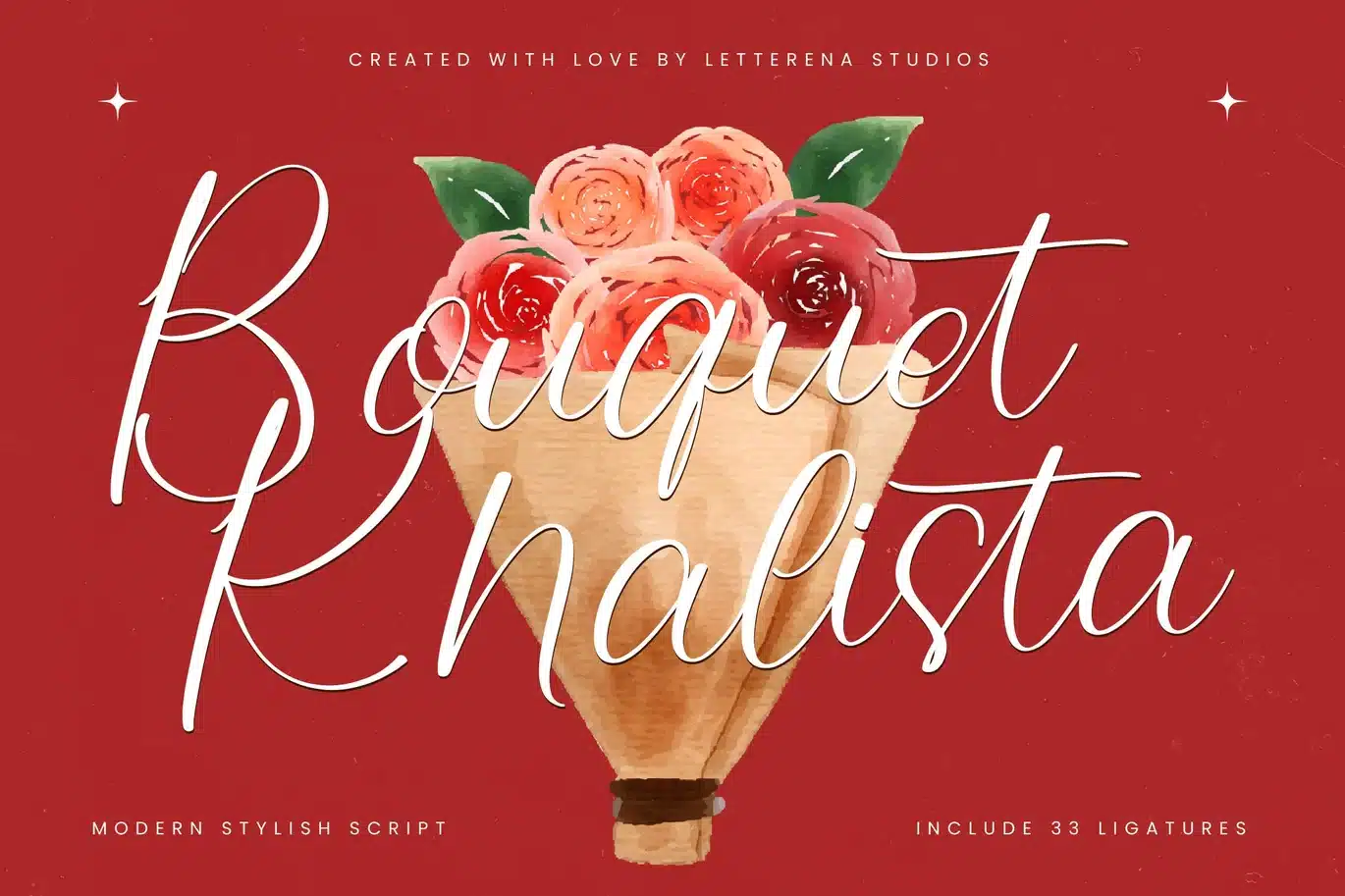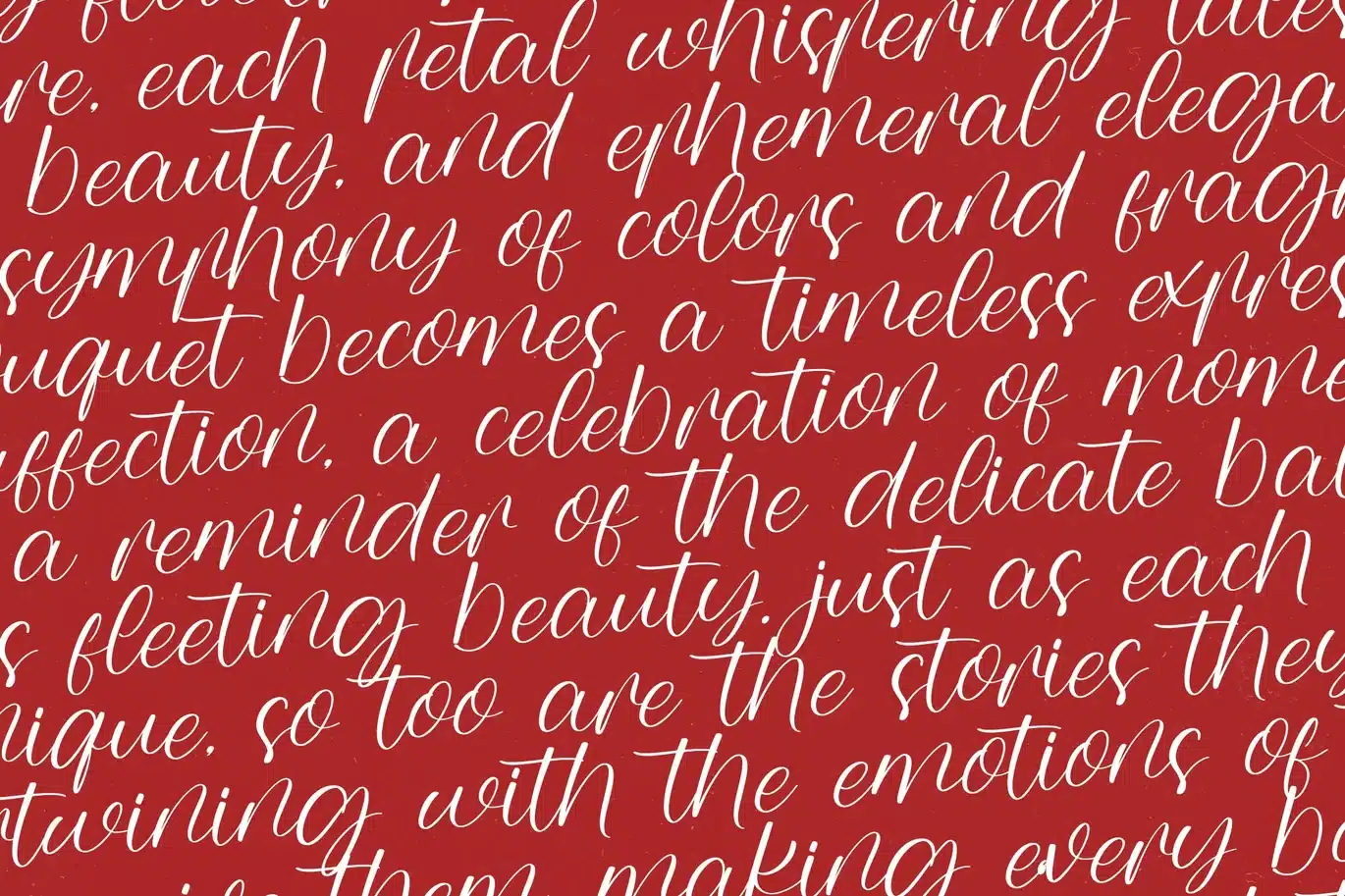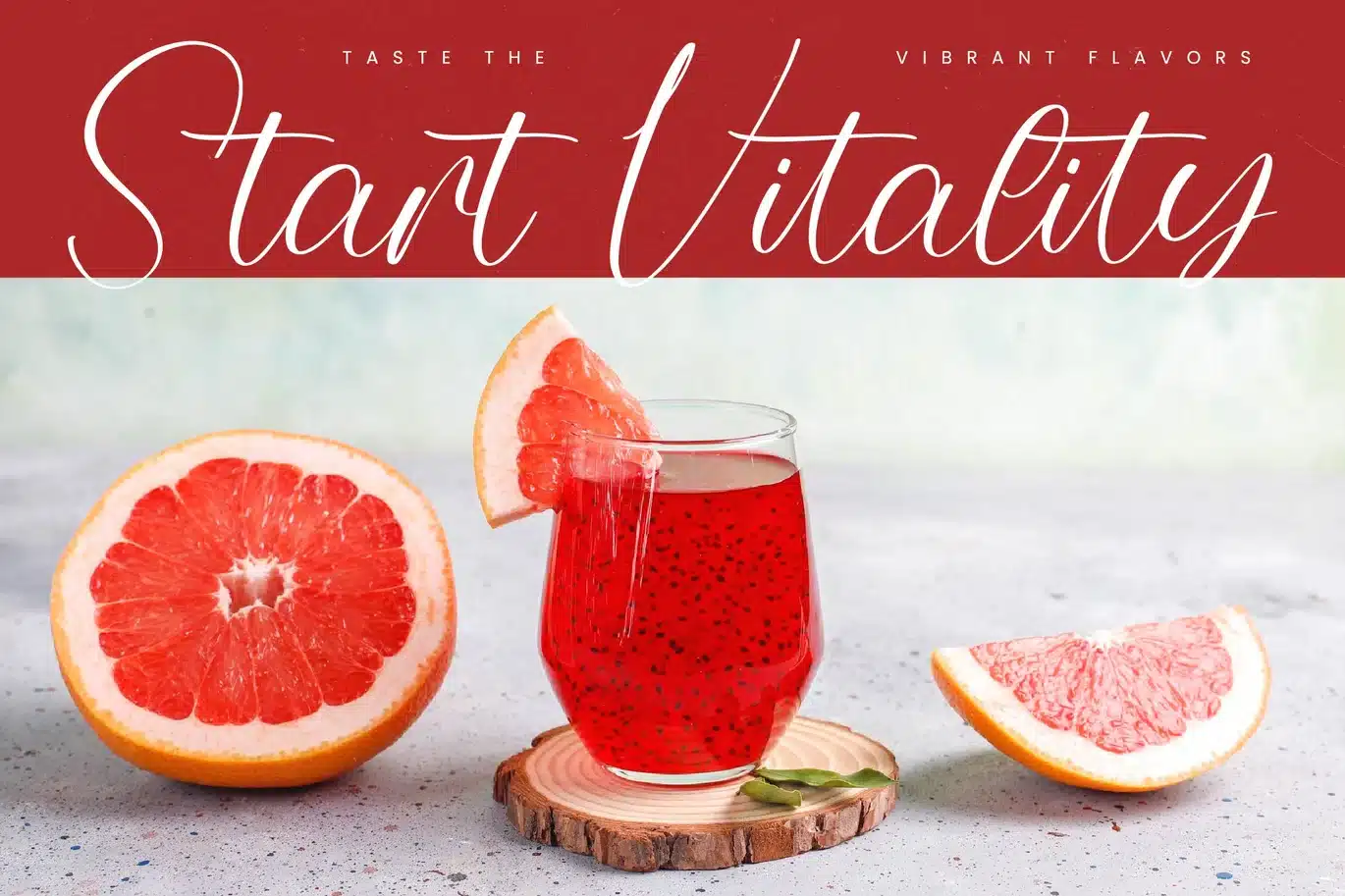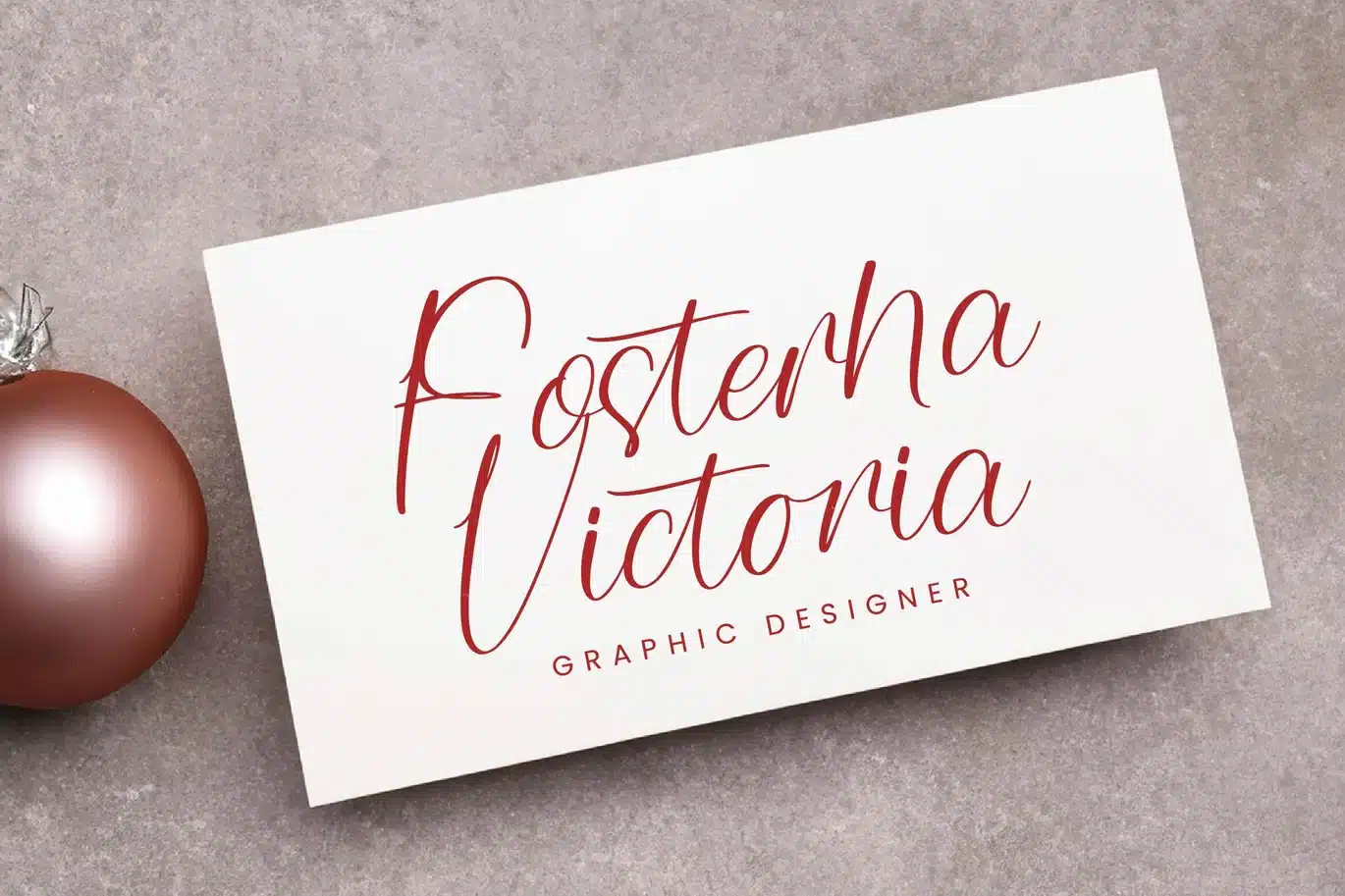
Boquet Khalista Modern Stylish Script Font
Hi ladies & gentlemen, this is one of our fonts suitable to complement your digital and printed creative products. This font is perfect for posters, social media posts, branding, personal projects, etc.